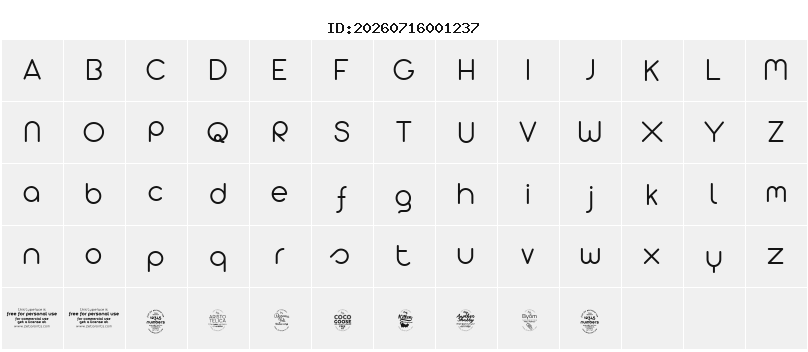
• Font Name: Arista 2.0 Alternate Light
• Full Font Name: Arista 2.0 Alternate Light
• Designer: Francesco Canovaro
• Manufacturer: studio kmzero
About Arista 2.0 Alternate Light.ttf
Arista 2.0 Alternate Light.ttf is a modern, elegant sans-serif font designed for ultimate readability and visual harmony. Perfect for branding, headlines, web design, and print materials.